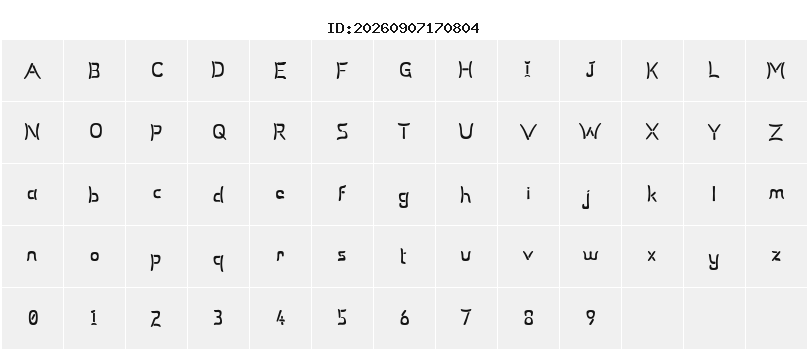
• Font Name: Um Sticks Alienated
• Full Font Name: Um Sticks Alienated
About Um Sticks Alienated.ttf
Um Sticks Alienated.ttf is a modern, elegant sans-serif font designed for ultimate readability and visual harmony. Perfect for branding, headlines, web design, and print materials.